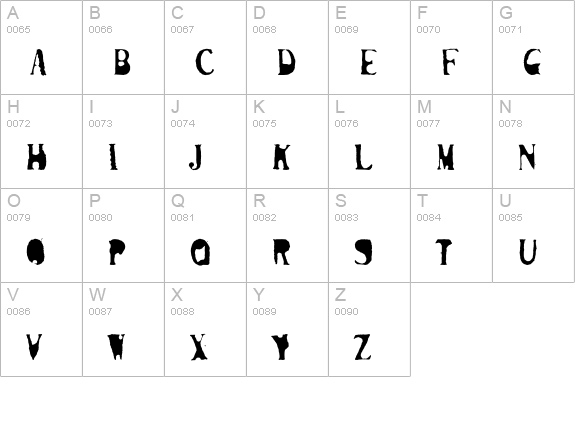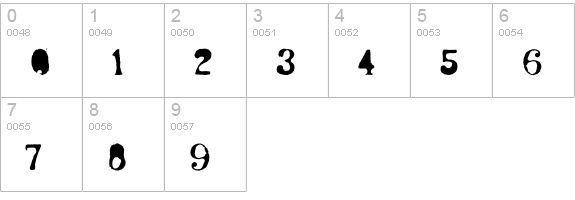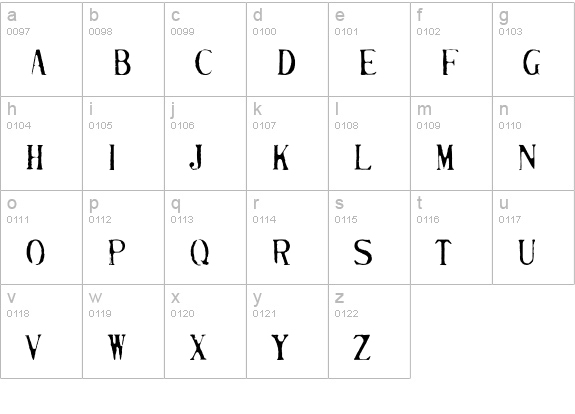
Mutilated-Fat Font Details
Introducing the striking and unique Mutilated-Fat font, a bold and edgy typeface that is sure to make a statement in any design project. This font features distorted and mutilated letterforms that exude a sense of raw energy and creativity. With its unconventional style, Mutilated-Fat font is perfect for adding a touch of avant-garde flair to your designs. The best part? Mutilated-Fat font is available for free download at FontsMarket.com. You can easily access this cutting-edge font and incorporate it into your projects without any cost. Whether you're working on a poster, logo, or digital artwork, Mutilated-Fat font will add a touch of originality and boldness to your designs. Download this one-of-a-kind font today and unleash your creativity like never before!